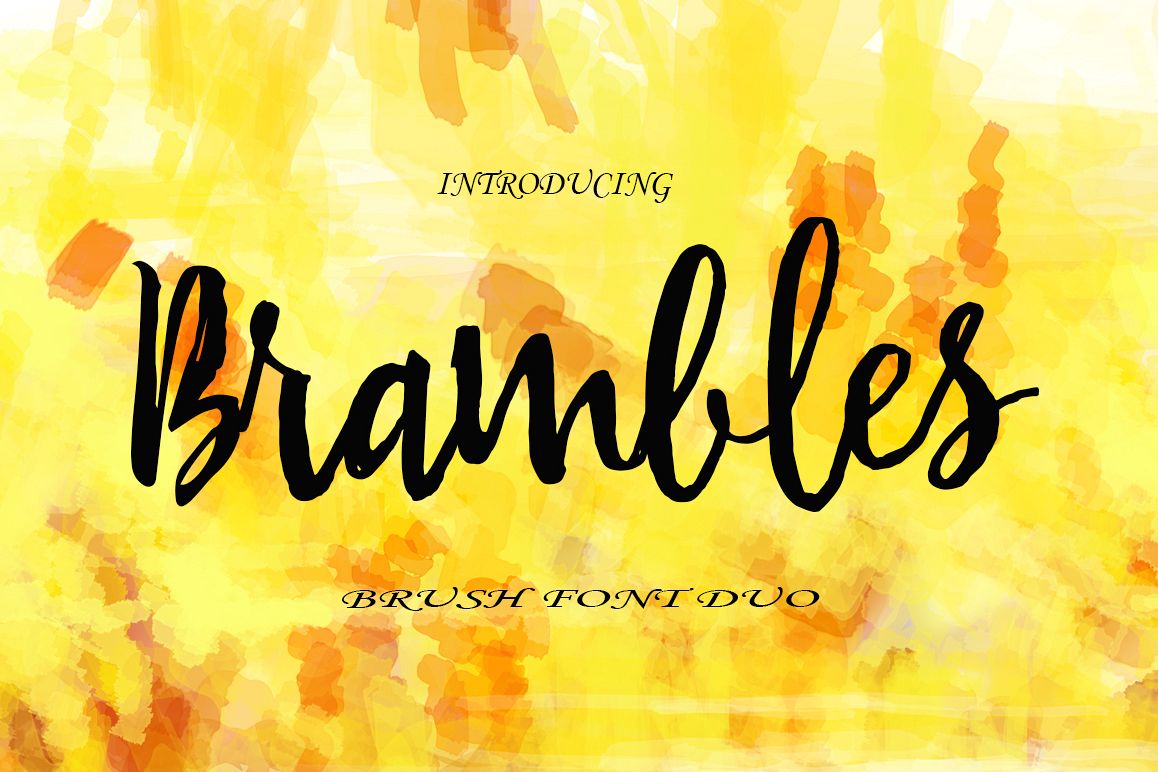
Brambles Font Duo
Brambles
Steellia
FontDuo is the font style handmade dancing and then live trace to have unique forms of calligraphy, the writing style is very natural, fantastic and unique.
The Features of this fonts;
* Standart ligatures
* stylistic sets